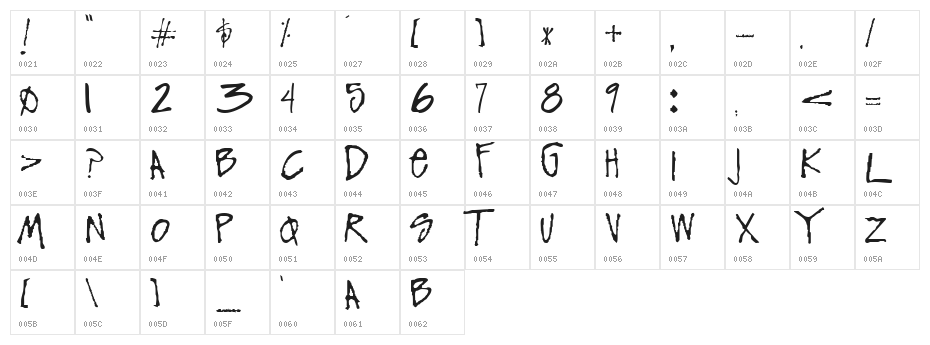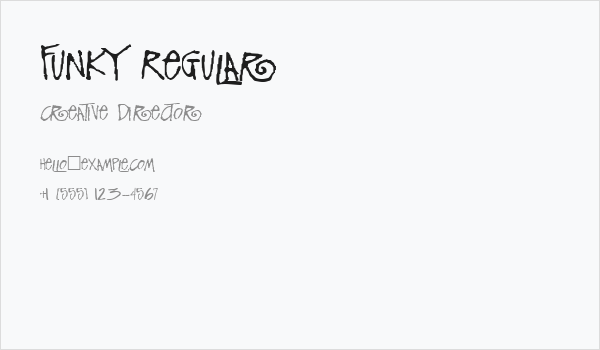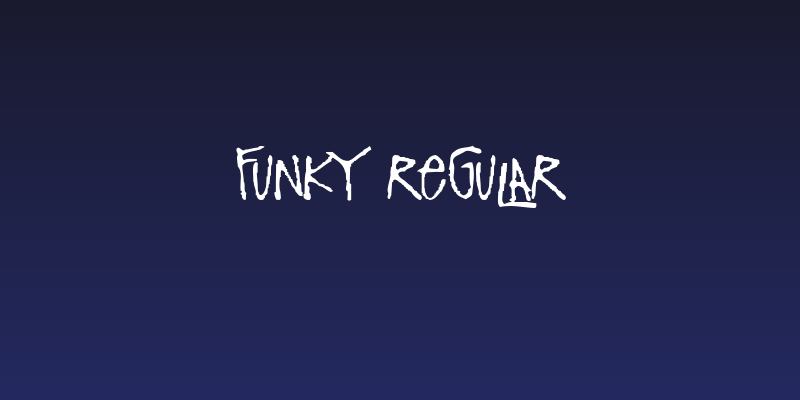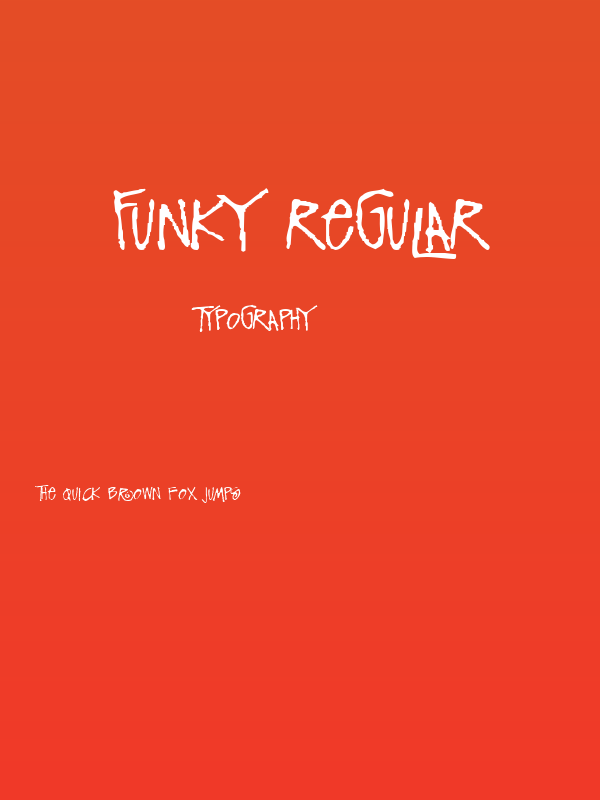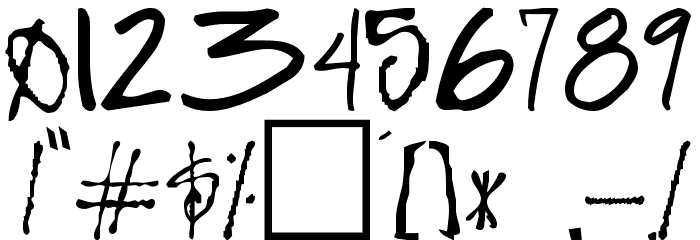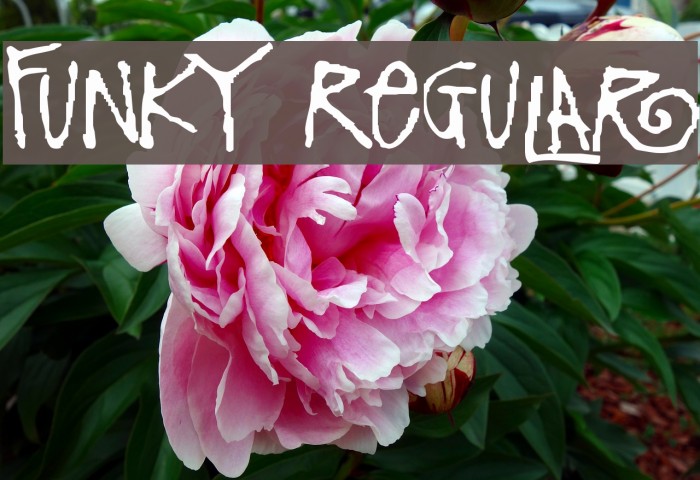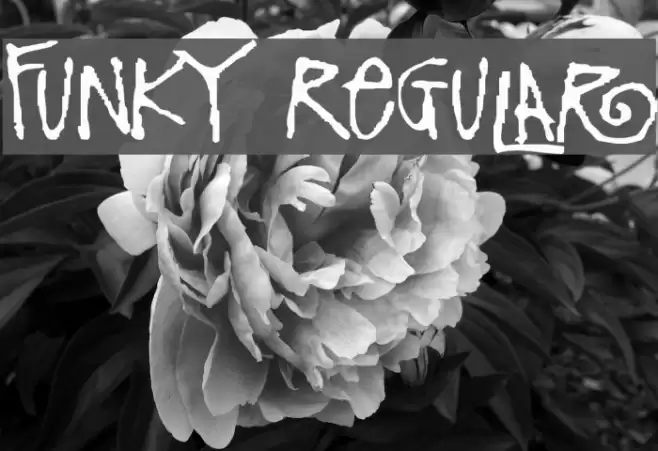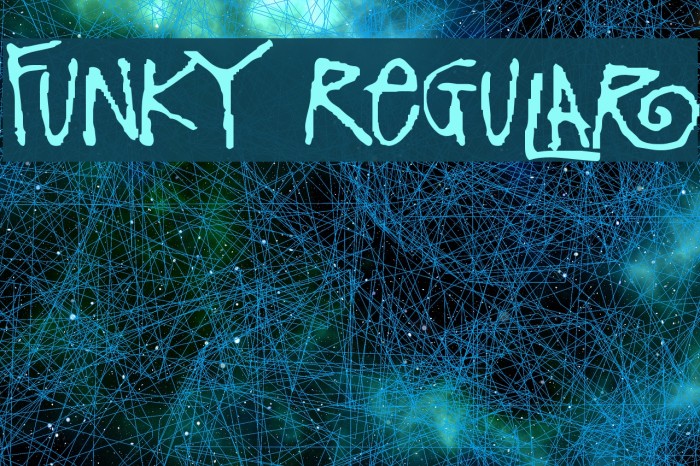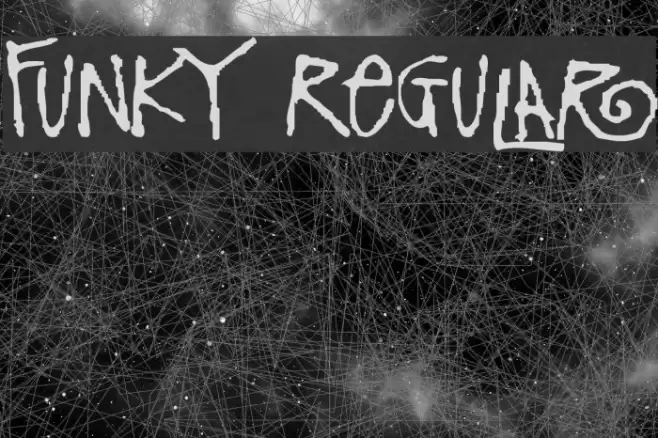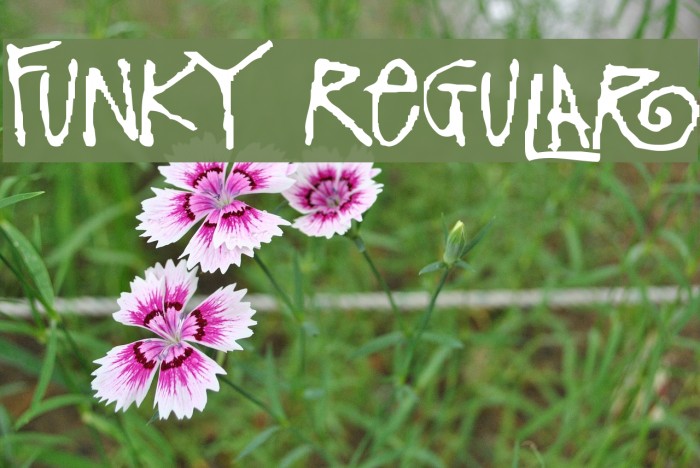
Funky Regular Font
Funky Regular Description
This font exhibits a playful and energetic style with its irregular, hand-drawn appearance. The characters are bold and have a whimsical, almost cartoonish quality, featuring uneven strokes and varying thicknesses. The uppercase and lowercase letters maintain a consistent quirky aesthetic, while the numerals and special characters continue this lively theme. The overall design is reminiscent of graffiti or doodles, making it stand out with its unique and artistic flair.